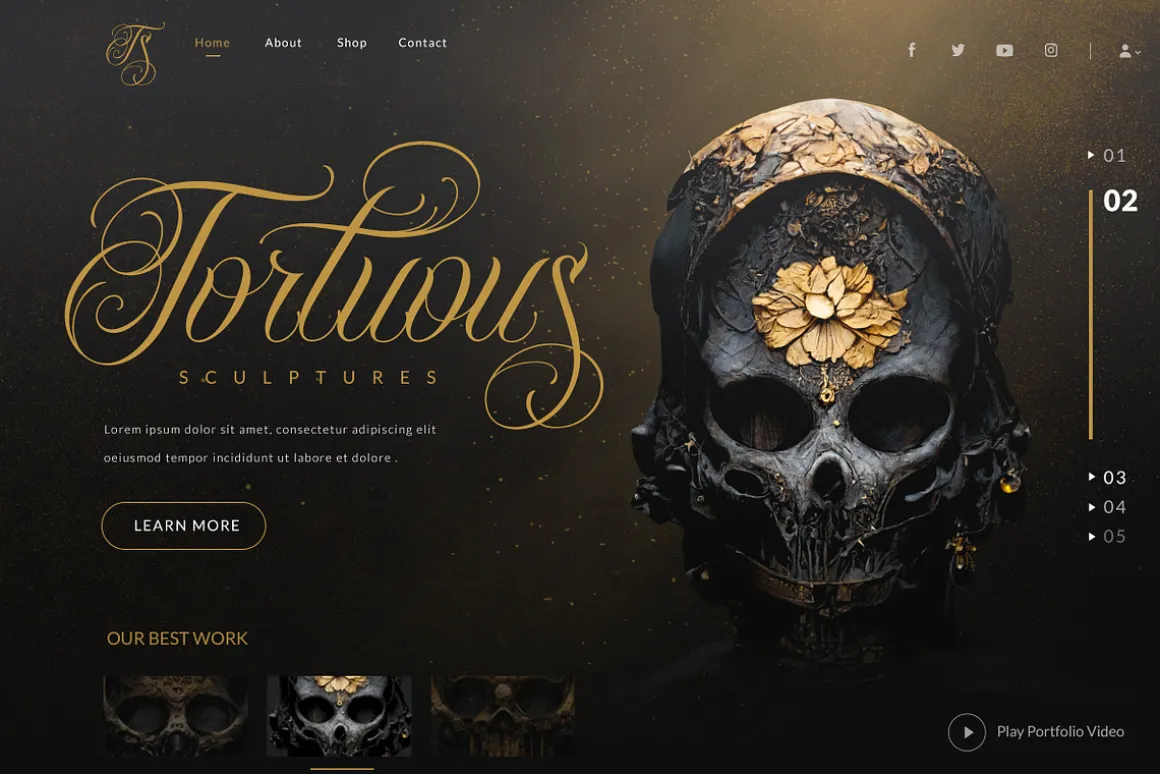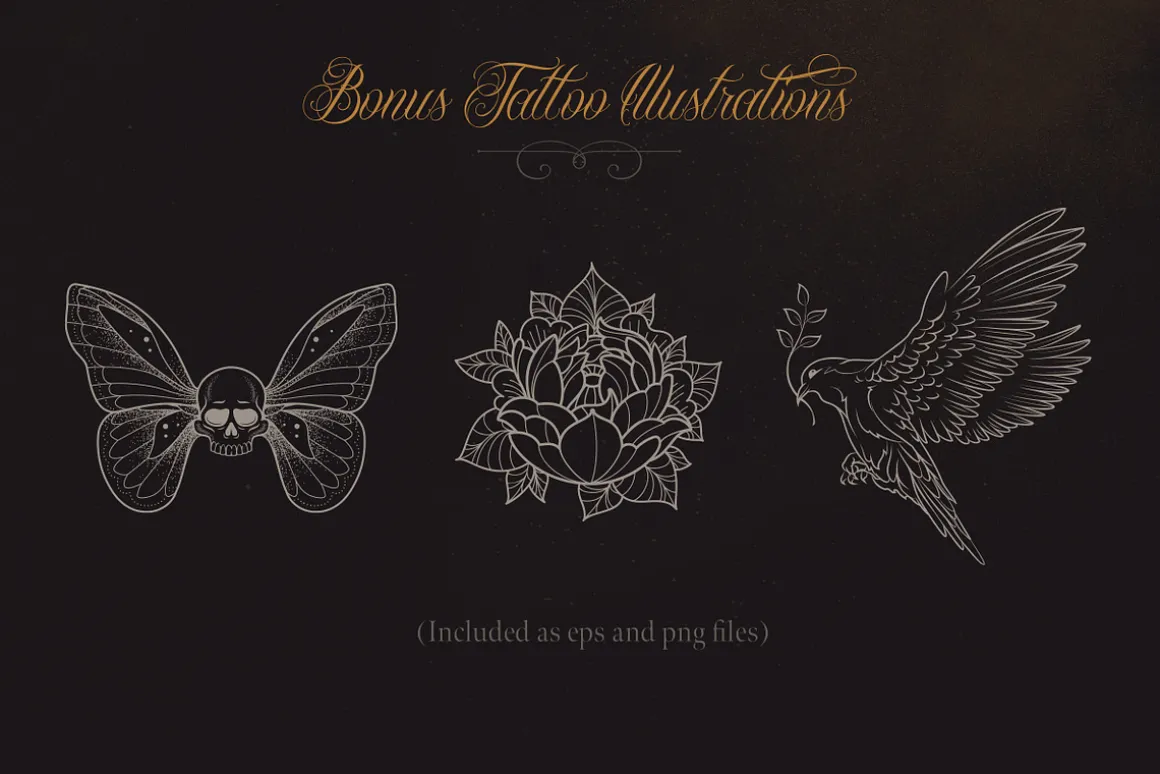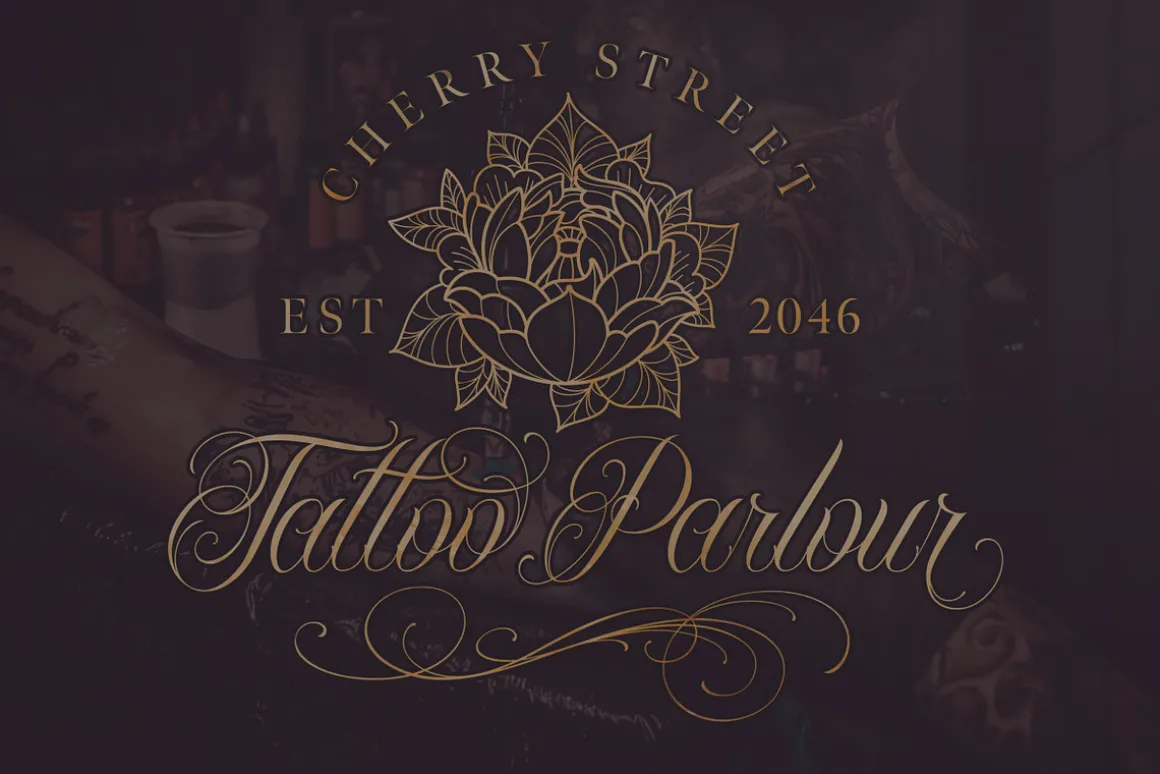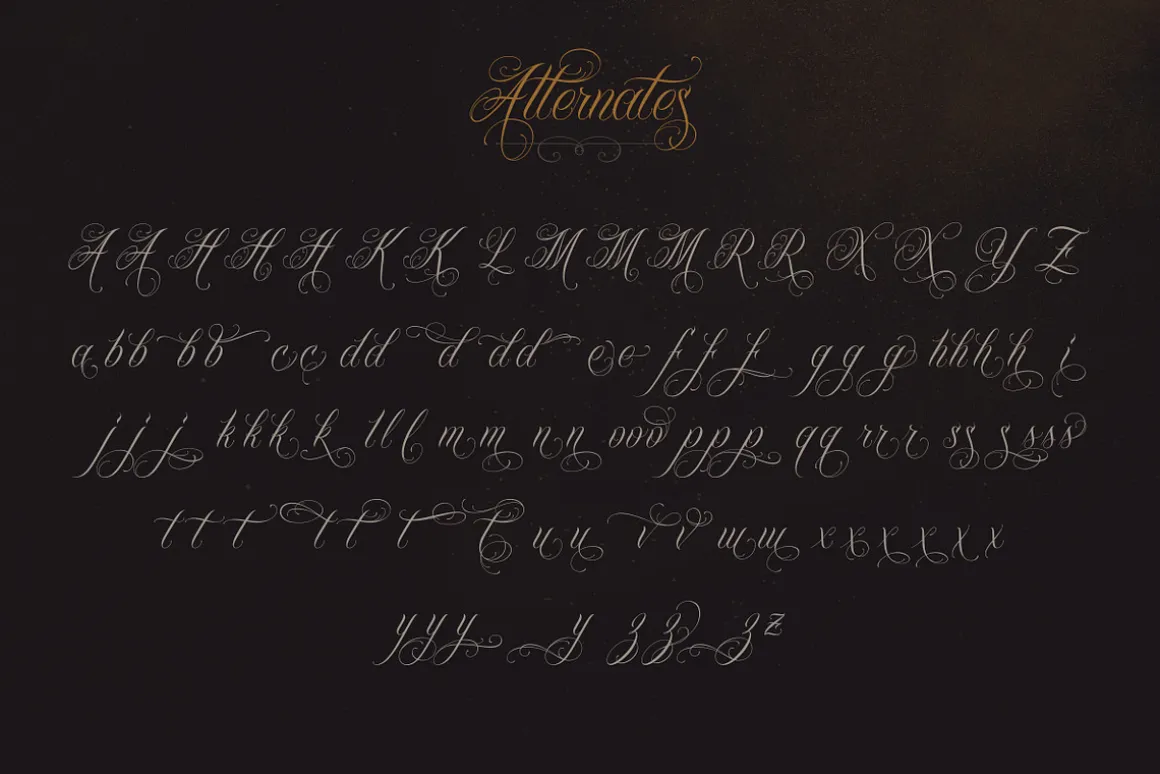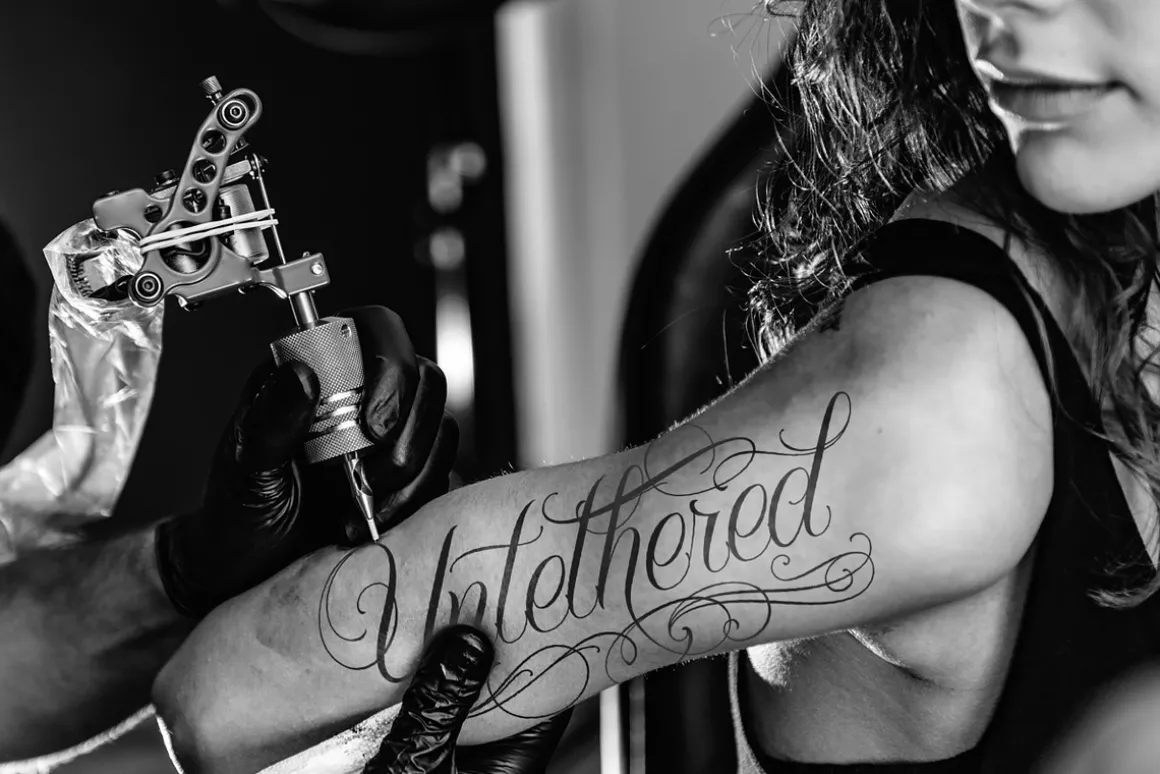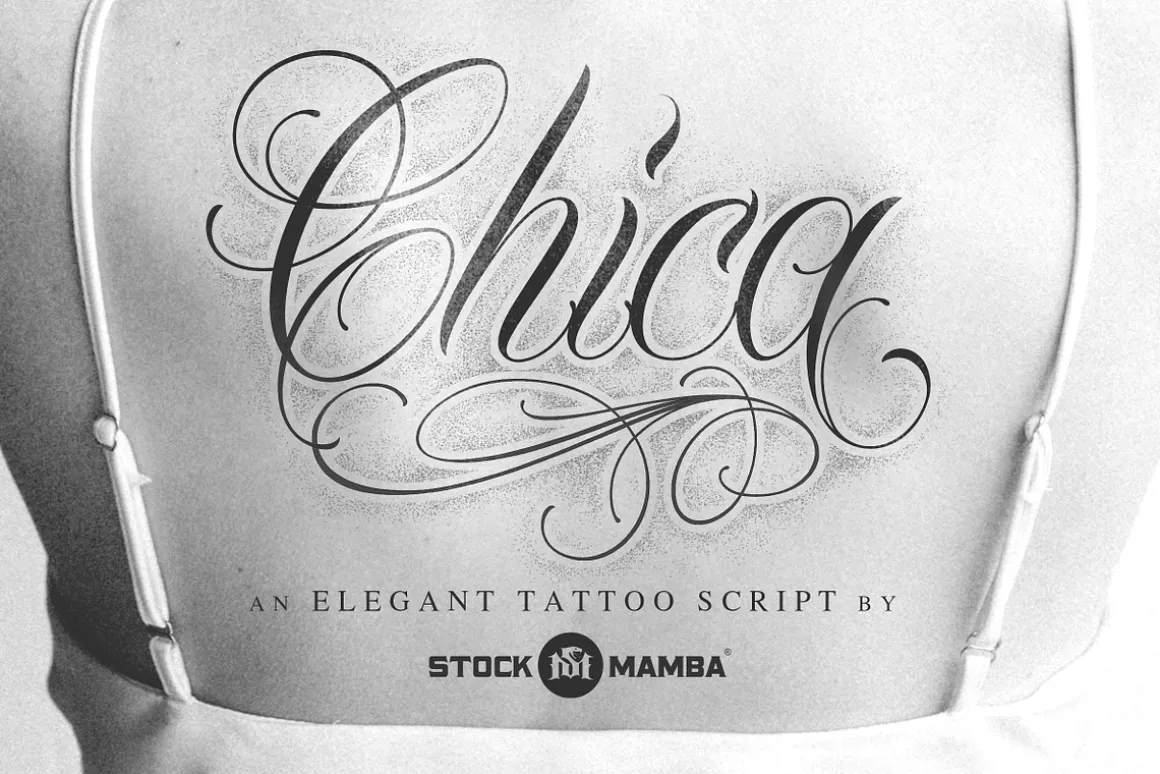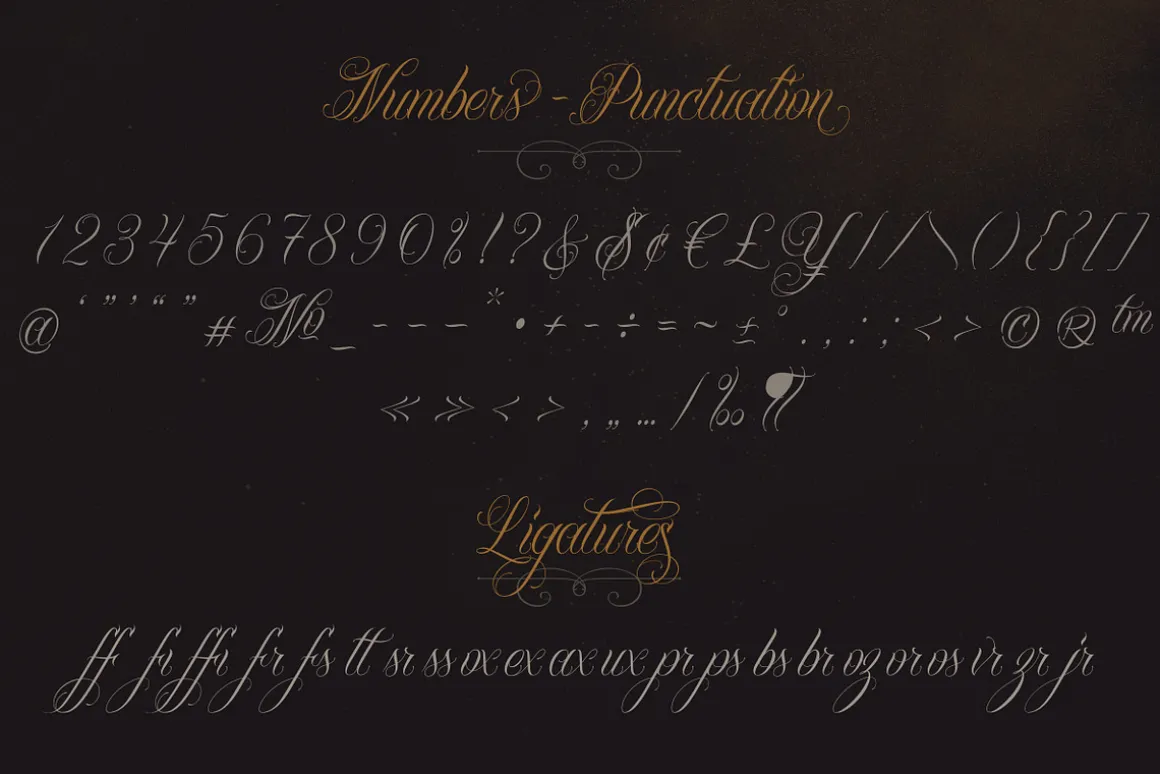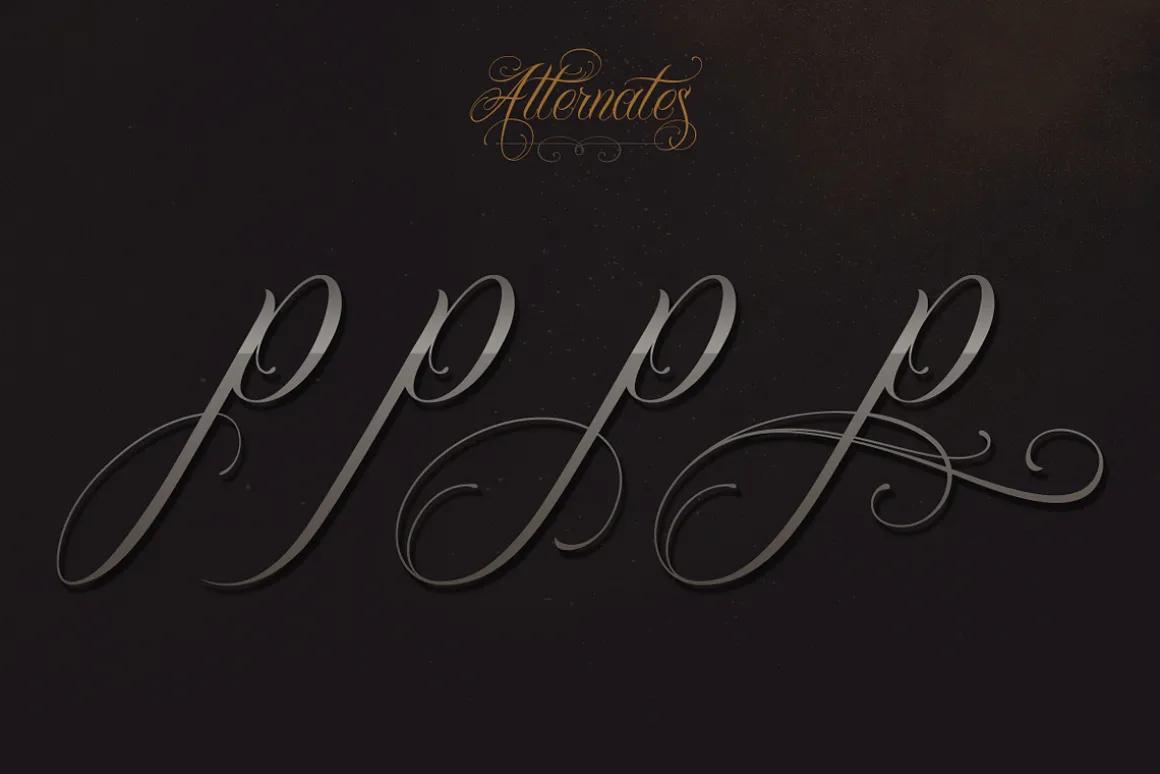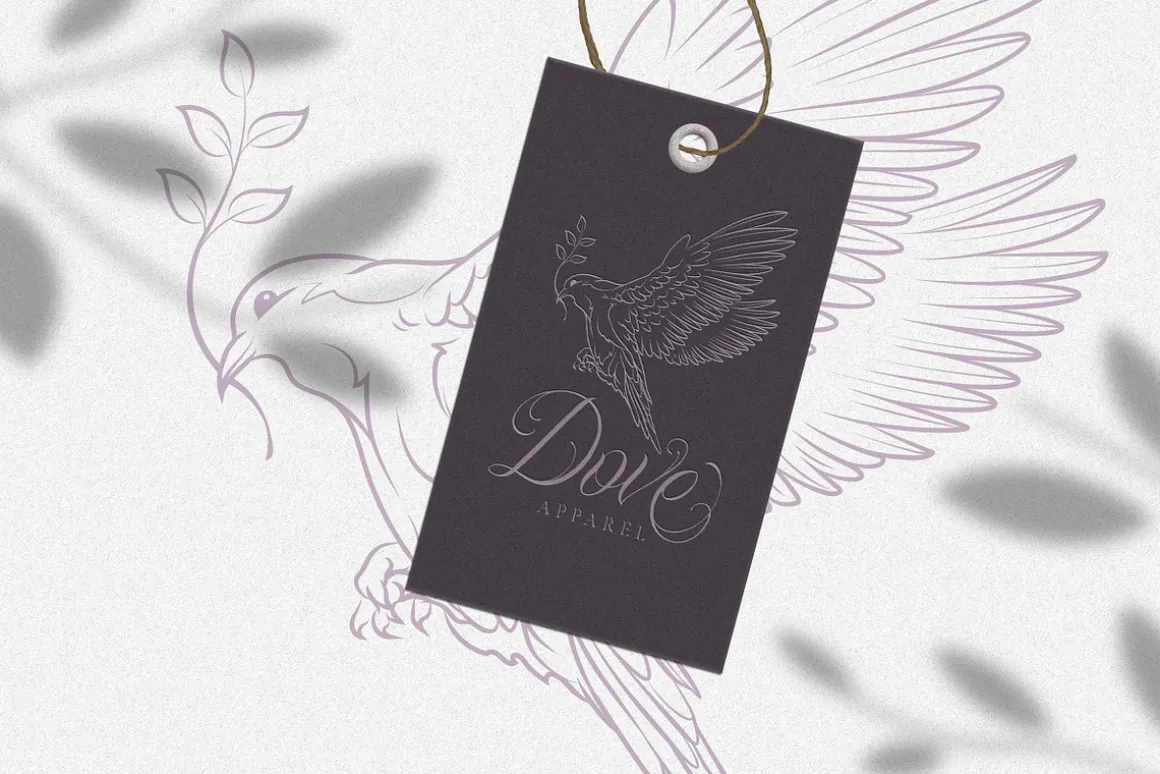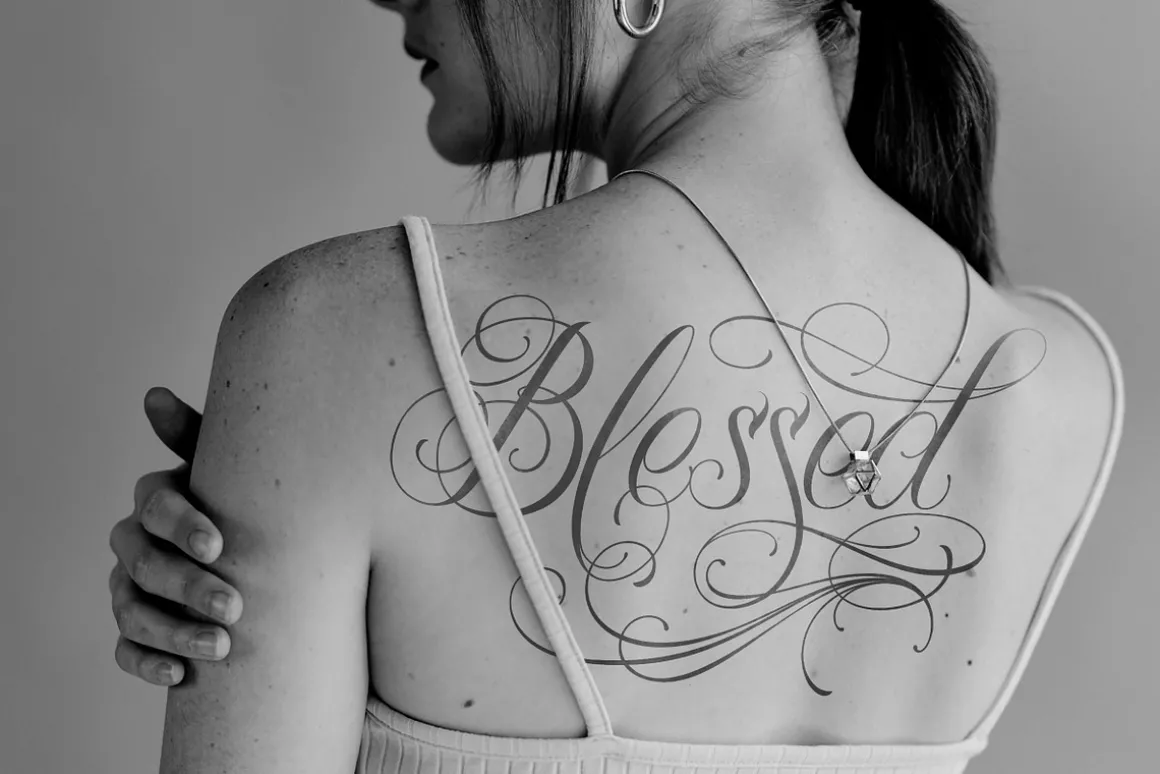
StockMamba presents a massive labor of love – “Chica” – a multi-lingual, elegant tattoo script with loads of extras including alternate characters for both the upper and lower case letters, over 20 ligatures, a bonus “Swashes” font, and 3 tattoo illustrations – saved as eps (vector) and png files. The swashes are also in a folder as individual png files, if you’d rather use them that way.
The bonus swashes have been added as an alternate font. Type capital A-N to display them. Lower case a-n will display a mirror image of the capital letter versions.